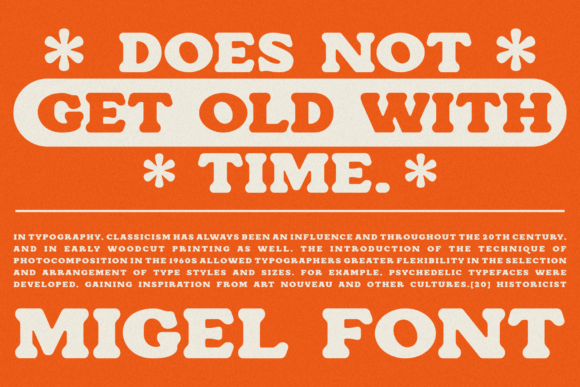
Introduction to Migel Font
Have you ever stumbled upon a font that instantly sparks creativity and transports you to a world of endless design possibilities? For me, that moment came when I discovered the Migel Font. Its unique blend of rounded edges and soft characteristics immediately caught my attention, and I knew I had to dive deeper into its world. With its playful and friendly impression, Migel Font is the perfect addition to any creative project, from retro and vintage designs to urban and modern masterpieces.
What sets Migel Font apart from other design resources is its versatility and high quality. Whether you’re working on a logo, product label, or poster, this font’s alternative styles and ligature features ensure that your designs stand out from the crowd. Plus, with its transparent background option, you can easily integrate Migel Font into your design workflow without any hassle. The best part? It’s available for free download, making it an invaluable resource for designers of all levels.
Key Features of Migel Font
- Designed with a unique and stylish aesthetic, making it perfect for adding a touch of elegance to any creative project.
Honest Review: Migel Font
As a designer, I’m always on the lookout for high-quality design resources to elevate my creative projects. Recently, I had the chance to explore the Migel Font, and I’m excited to share my thoughts.
Here are some things that worked well for me:
- ✨ The font’s modern design and sleek aesthetic make it perfect for contemporary branding projects.
- ✨ The font’s transparent background makes it easy to use as a overlay or texture in design projects.
- ⚠️ The font’s versatility is limited, and it may not be suitable for projects that require a more traditional or classic look.
- ⚠️ The font’s range of styles and weights is somewhat limited, which may not be ideal for designers who like to experiment with different typography options.
Overall, I was impressed with the Migel Font’s quality and design. While it may not be the perfect fit for every project, it’s a great resource to have in your toolkit for modern and contemporary design work.
Migel Font
Getting the Most Out of Migel Font
Use Migel Font in your creative project for a high-quality and unique design resource.
Take advantage of its transparent background to create visually appealing designs.
Migel Font is perfect for:
Graphic design projects
Branding and logos
Print and digital materials
Alternatives to Migel Font
Font Awesome is a high-quality font that offers a wide range of icons for designers. It’s a great resource for creative projects that require a transparent background. With over 1,600 icons, it’s a versatile option for designers.
Compared to Migel Font, Font Awesome offers more variety and flexibility. While Migel Font is a great option for simple text, Font Awesome is better suited for projects that require icons and graphics.
Noto Sans is a free download font that offers a high-quality, elegant design. It’s a great option for designers who want a simple yet sophisticated look for their creative project.
Compared to Migel Font, Noto Sans has a more refined and modern design. While Migel Font is a great option for casual text, Noto Sans is better suited for formal and professional projects.
Montserrat is a high-quality font that offers a sleek and modern design. It’s a great option for designers who want a font that’s easy to read and visually appealing. With its clean lines and simple design, it’s perfect for creative projects that require a transparent background.